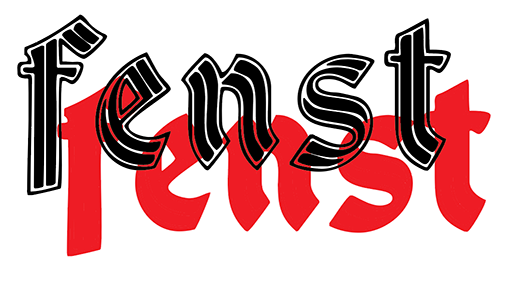
Fill in gaps in a hollow text font
I'm using DS Cathedral font and I'd like to be able to use a stroke so the inner font is brown and the outer is yellow.
I thought I could do this naturally but when I add stroke, it doesn't fill all the gaps in the background and adding more stroke just got over the orignal text. If you see what i mean in the attachement.
I have tried a clipping mask but evezrything got yellow then.
Possible to do it easily
In the Appearance panel add a new fill and move it below the characters.
Then apply Effect > Pathfinder > Trim and after that Effect > Pathfinder > Add to that fill (only to that fill). Disregard the warnings. Unfortunately this will also fill the punches.
Maybe you could also add a new stroke in the Appearance panel, move it below the Characters and then just apply a very thick stroke so that the gaps are filled.
Similar to Monika's solution but with Pathfinder Merge.
Object > Expand Appearance will create outlines and the Shape Builder tool (Shift M) will remove the fill in the e when clicked with the Alt key.
In the Appearance panel add a new fill and move it below the characters.
Then apply Effect > Pathfinder > Trim and after that Effect > Pathfinder > Add to that fill (only to that fill). Disregard the warnings. Unfortunately this will also fill the punches.
Maybe you could also add a new stroke in the Appearance panel, move it below the Characters and then just apply a very thick stroke so that the gaps are filled.
Similar to Monika's solution but with Pathfinder Merge.
Object > Expand Appearance will create outlines and the Shape Builder tool (Shift M) will remove the fill in the e when clicked with the Alt key.
The colored path thickness is a little bit too small in my opinion but I'll check how I can enlarge it !
I am not sure that I understand what you mean by the colored path thickness is a little bit too small.
It has the same size at the characters.
It's a feeling based on the final result I want.
I think it's maybe due to the rounded corner of the inner path
It is possible to modify the corners and ask that it's mor straight than rounded ?  see the final result expected
If you see what I mean 🙂
The way the font is designed with varying thickness and roundness will make that very difficult.
Ok, I can do it using Pen tool with anchor but it will require some time 🙂
Hi ton, just to let you know, finally, I have re-shaped the anchors and paths of the letters I needed to make it more straight.
It took me time but happy with the results 🙂